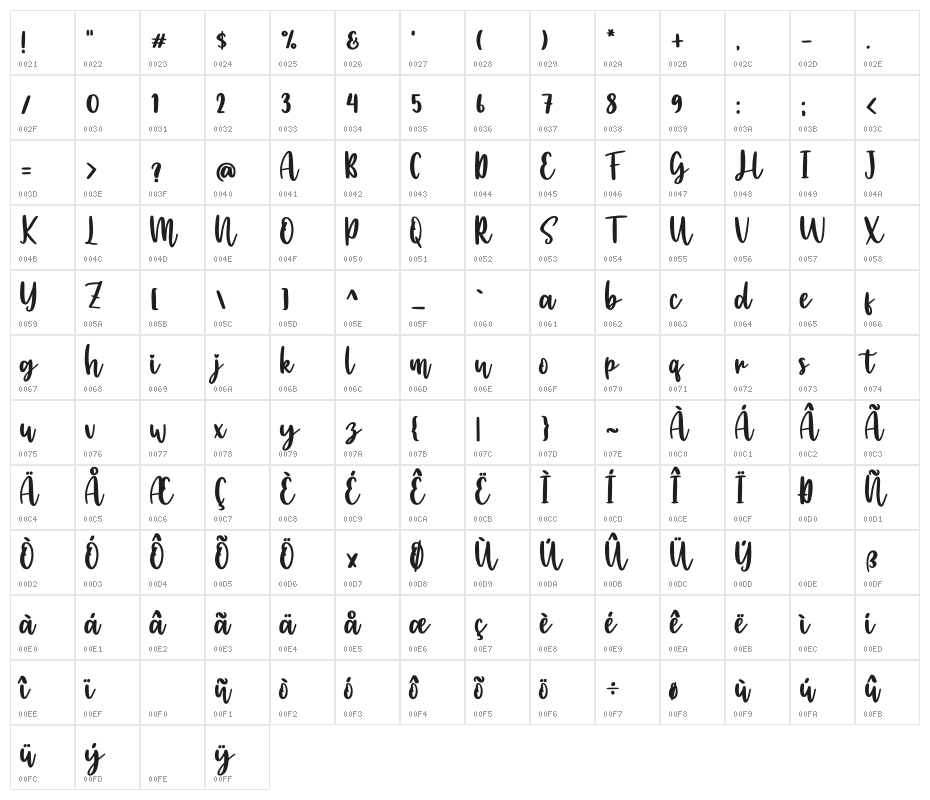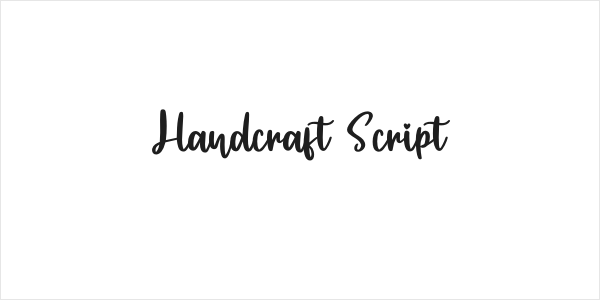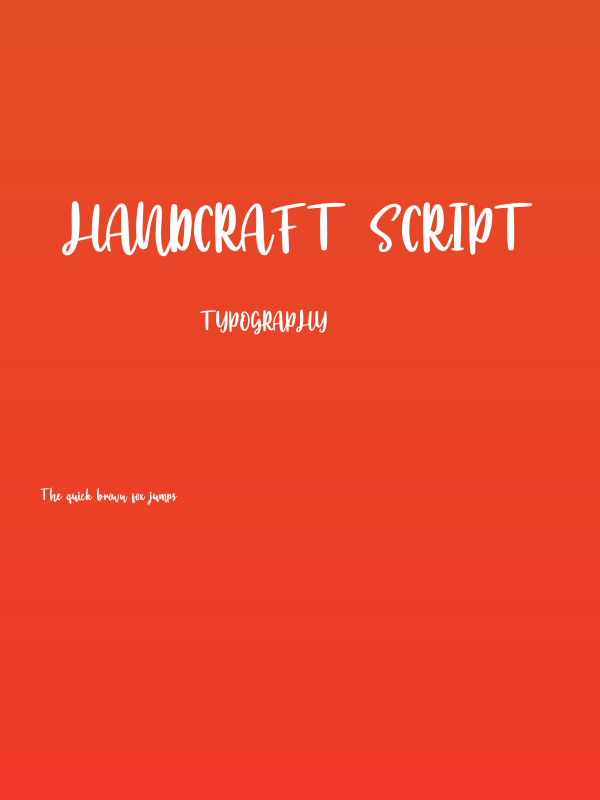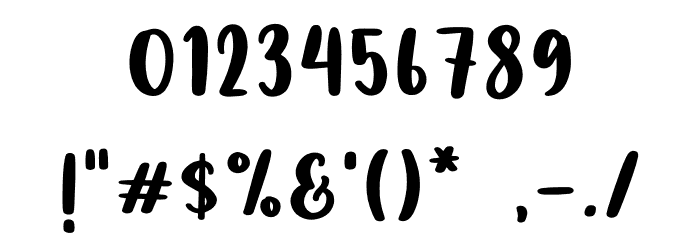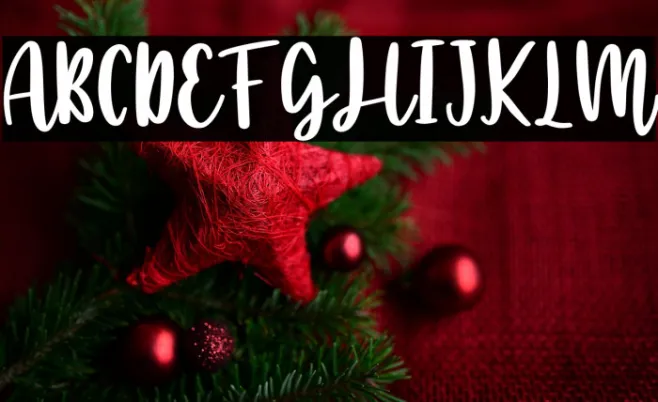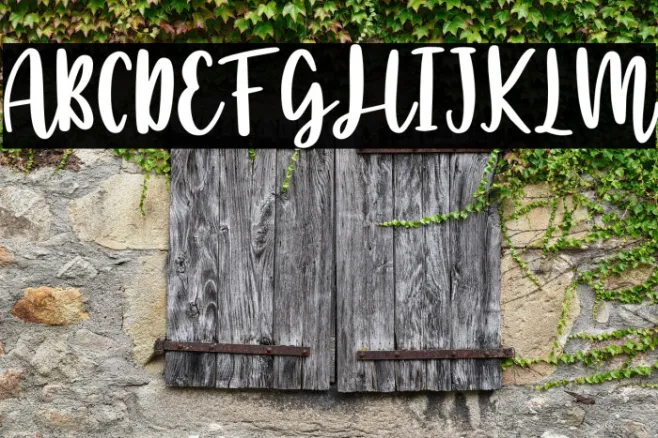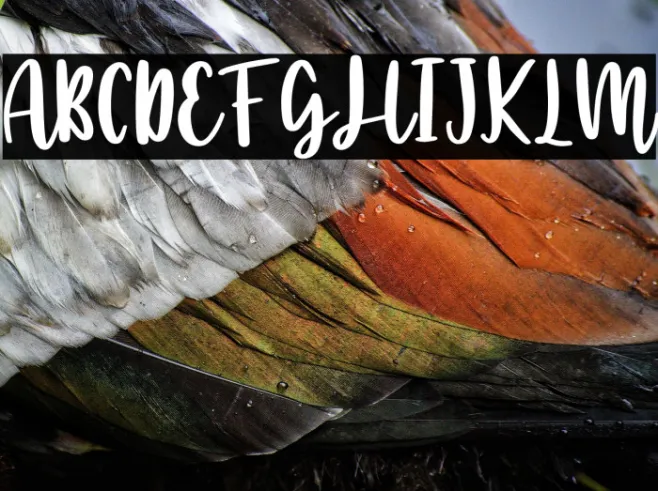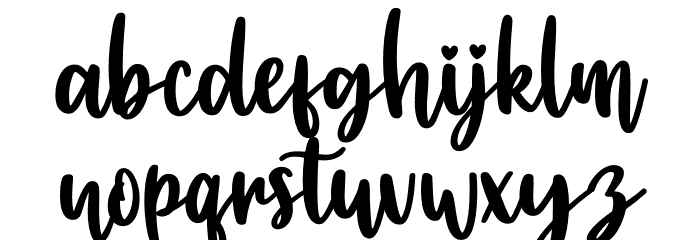
Handcraft Script Font
Handcraft Script Description
This font exudes a lively and playful character, with its hand-drawn script style that mimics the fluidity of natural handwriting. The letters are bold and slightly slanted, giving a sense of movement and energy. The strokes are thick and consistent, providing a strong visual presence. The uppercase letters are tall and elegant, while the lowercase letters maintain a charming, casual feel. The numbers and special characters are crafted with the same attention to detail, ensuring a cohesive look across all elements. This font is perfect for projects that require a personal touch, such as invitations, greeting cards, or branding materials.
| Proposed Projects | Ideal for invitations, greeting cards, branding materials, and any project needing a personal, handcrafted touch. |